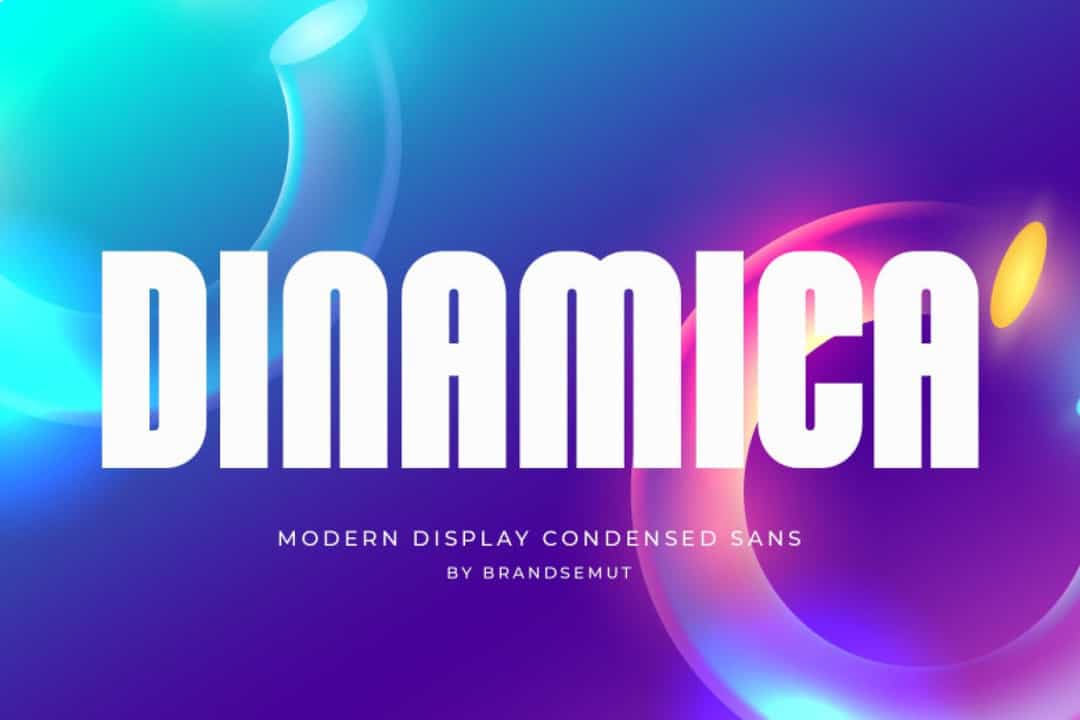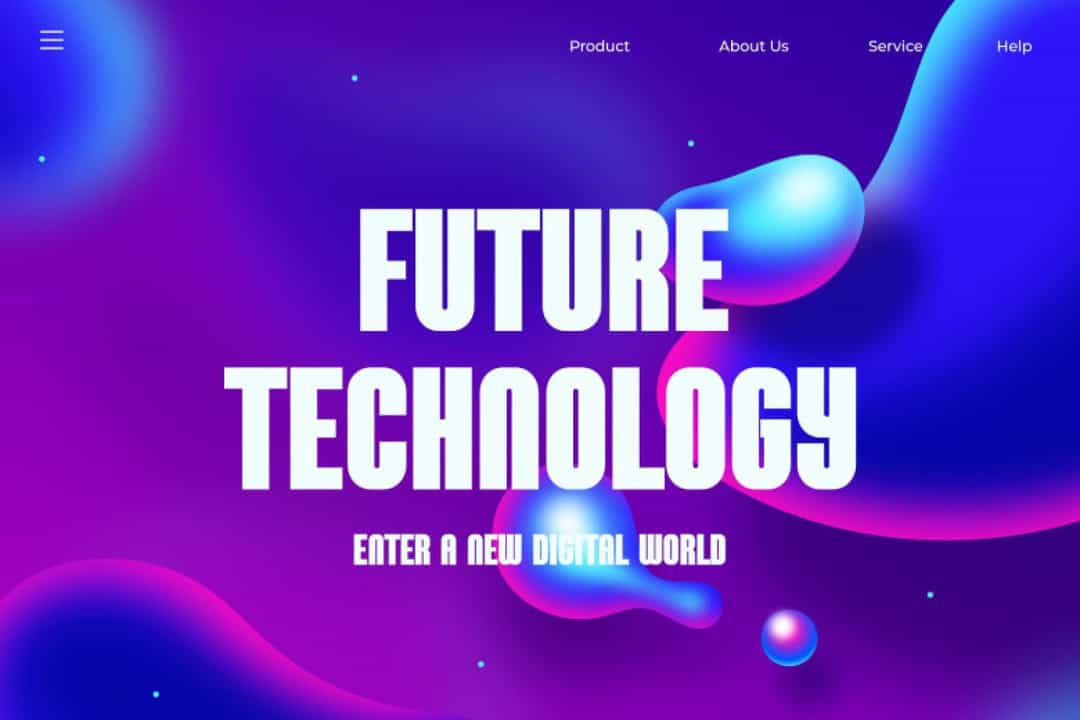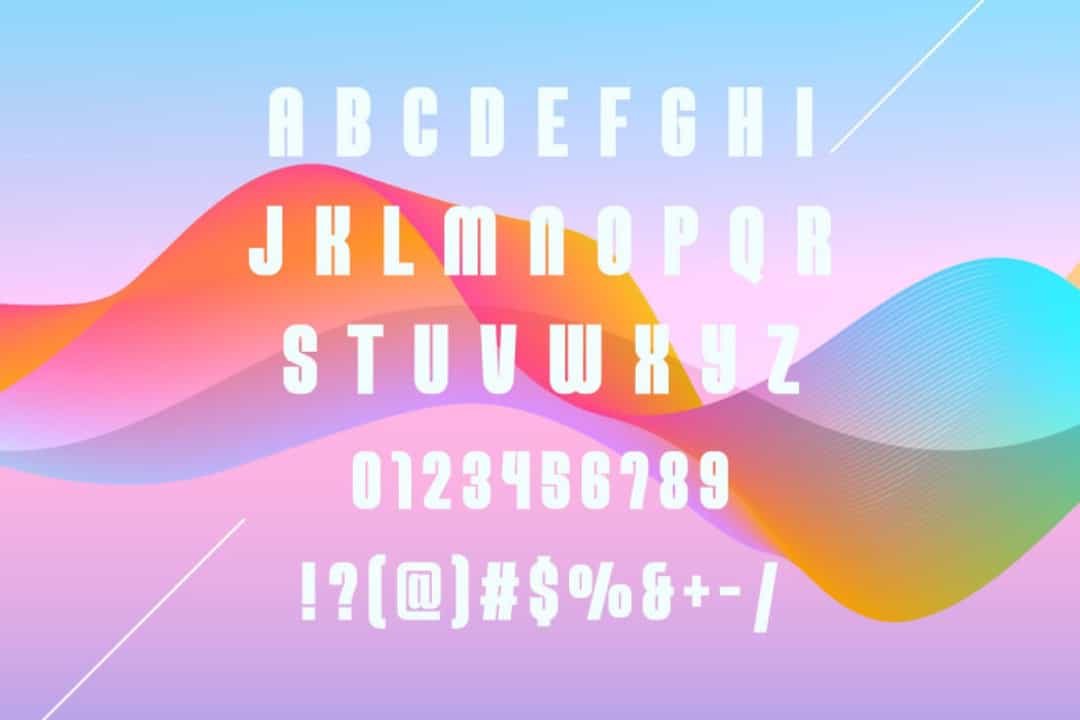
Dinamica is an ultramodern display font less that is ideal for creating headings and logos, branding magazines, product packaging and invitations. This display uses sleek curved lines that add extra sophistication to each project.